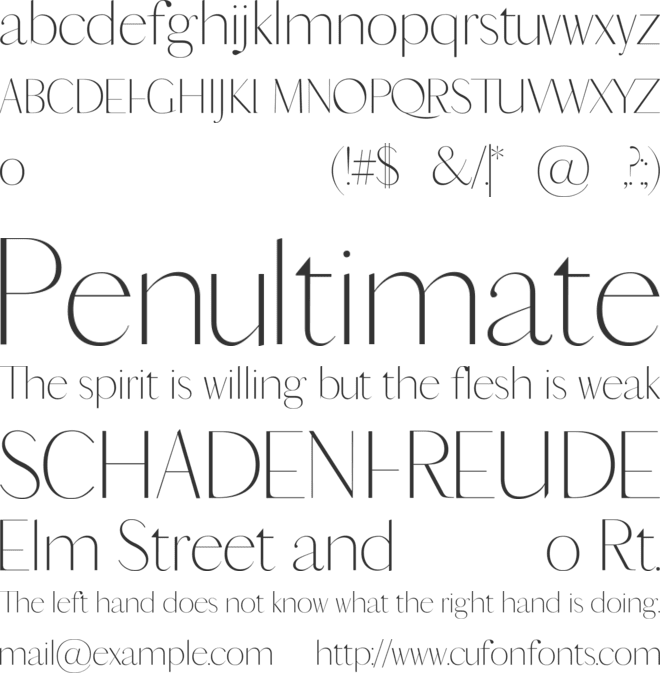
BROWNI Font Family
Browni is a stylish display font with 600+ glyphs and multilingual support—perfect for bold branding, editorial flair, and luxury packaging.